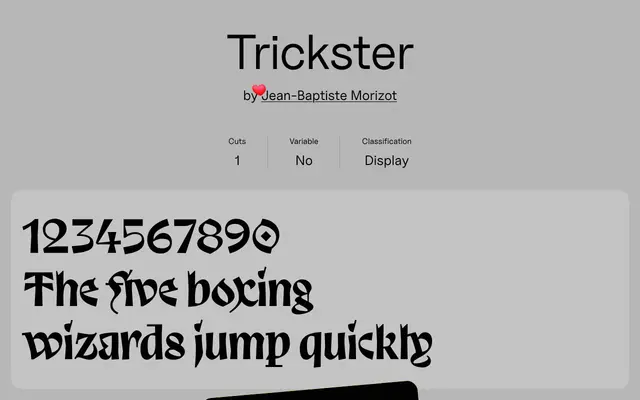
Trickster
A single-cut display typeface by Jean-Baptiste Morizot, released under the SIL Open Font License for free commercial and personal use.
A display typeface from Jean-Baptiste Morizot offered in one cut with no variable axis. Released under the SIL Open Font License 1.1, it is free to use in commercial and personal projects, with redistribution and modification permitted under additional conditions. The single-weight offering positions it as a headline or accent face rather than a workhorse family.
Classified as Display by the foundry; the name and single-cut offering suggest an expressive, decorative typeface intended for headline use rather than extended text.